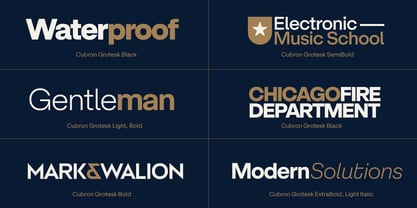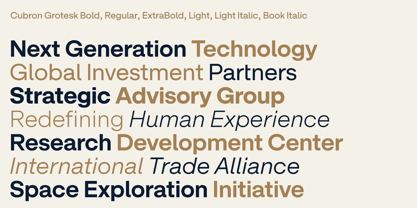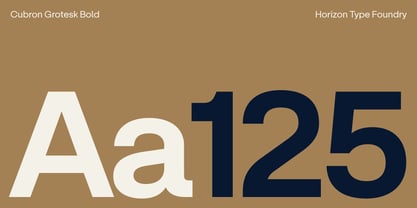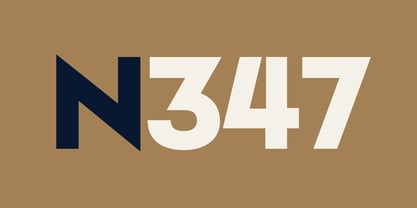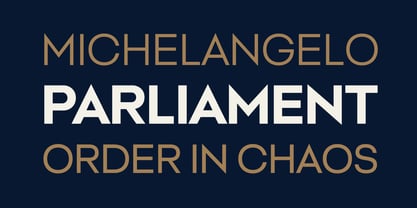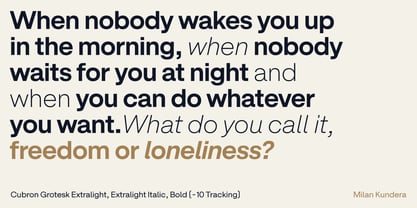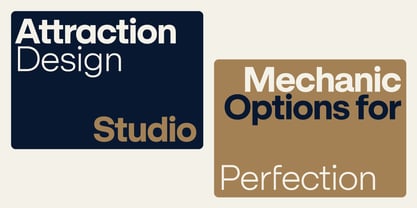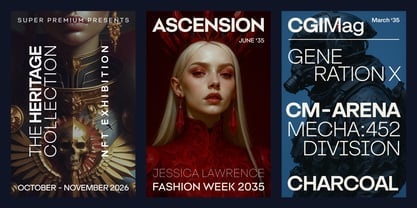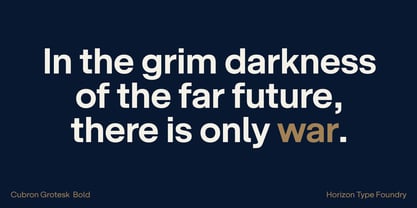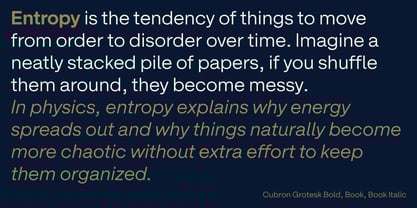
Cubron Grotesk
The Cubron Grotesk Font Family was designed by Ufuk Aracıoğlu and published by Horizon Type. Cubron Grotesk contains 20 styles and family package options. More about this family
Cubron Grotesk is a geometric sans-serif type family with 10 weights and matching italics, crafted to be both flexible and consistent across print and digital environments.
It doesn’t try to steal the spotlight but it knows how to hold your attention. With clean, thoughtful geometry and just the right amount of warmth, it walks the line between neutrality and personality. But Cubron doesn’t stop there: with nearly 20 stylistic alternates, it gives you the option to fine-tune its voice adding sharper angles, more assertive forms, or a cleaner, minimalist tone when the moment calls for it.
It’s sharp when you need clarity, soft where you need flow. Whether you're building a brand, shaping a layout, or crafting an interface, Cubron Grotesk adapts with ease from bold headlines to quiet paragraphs.
A reliable voice, ready for quiet confidence or bold clarity just as you need.